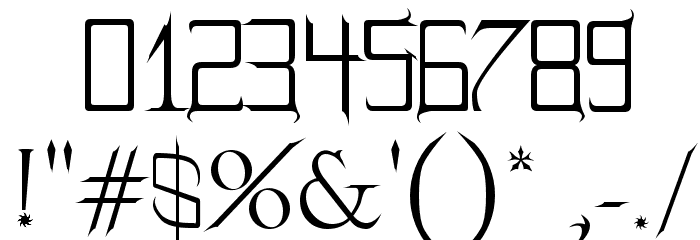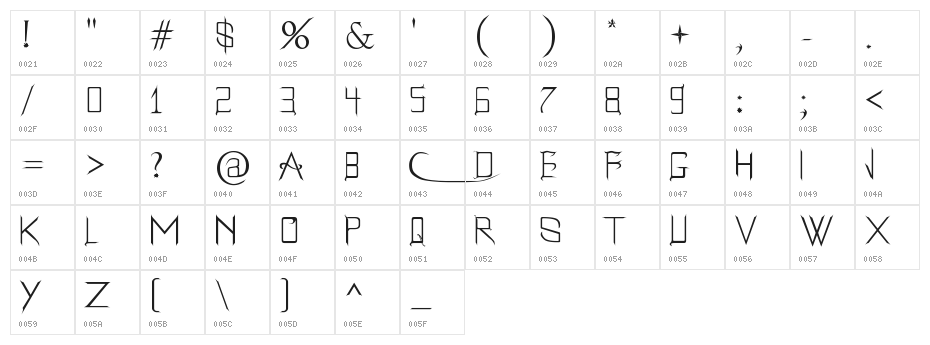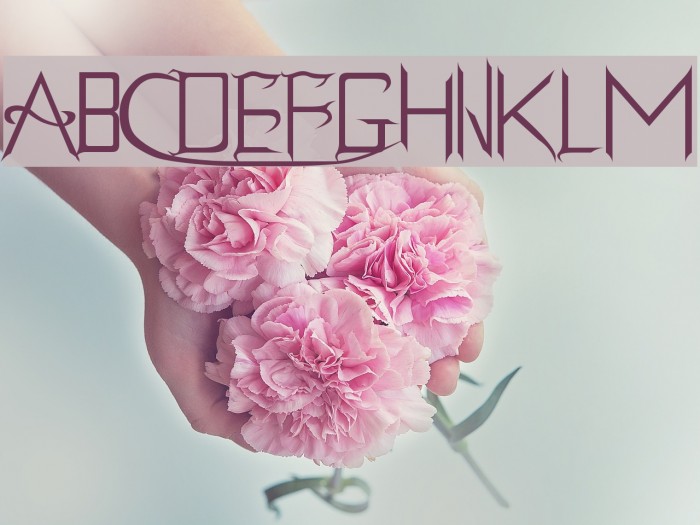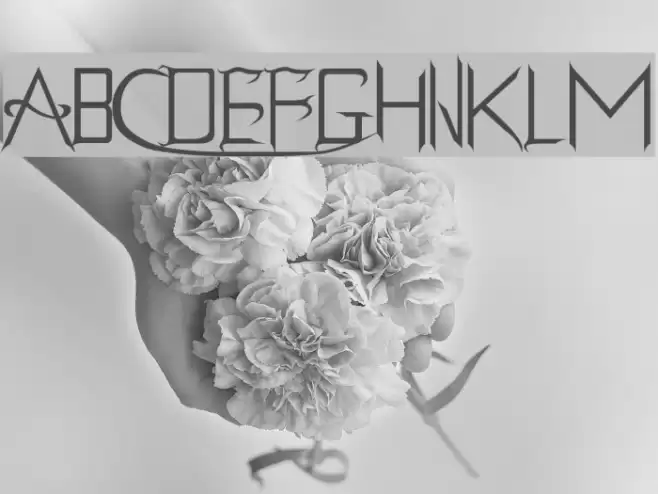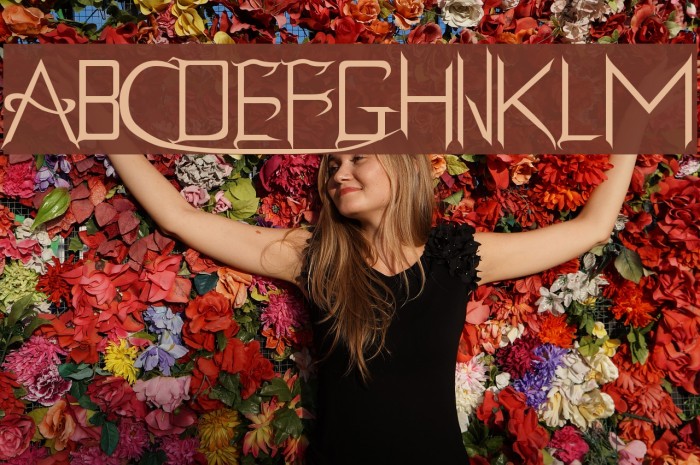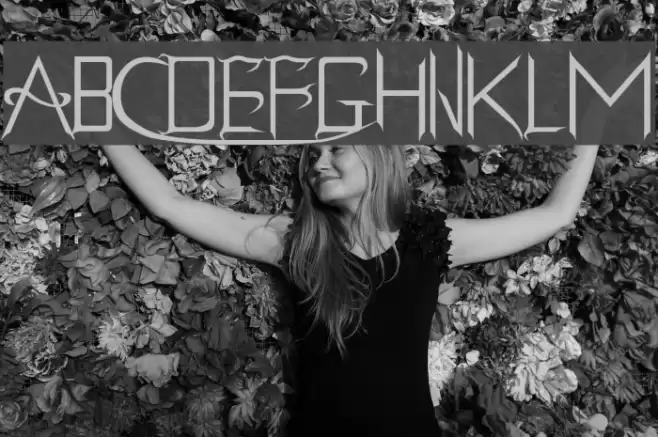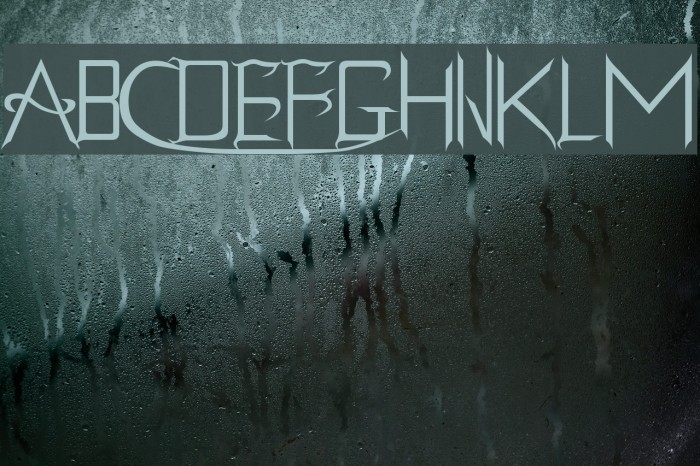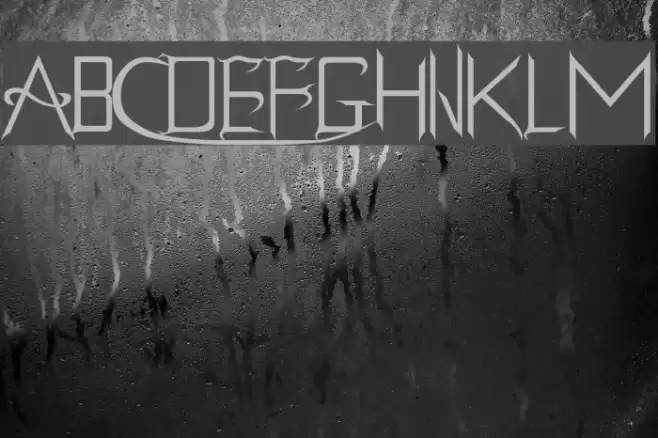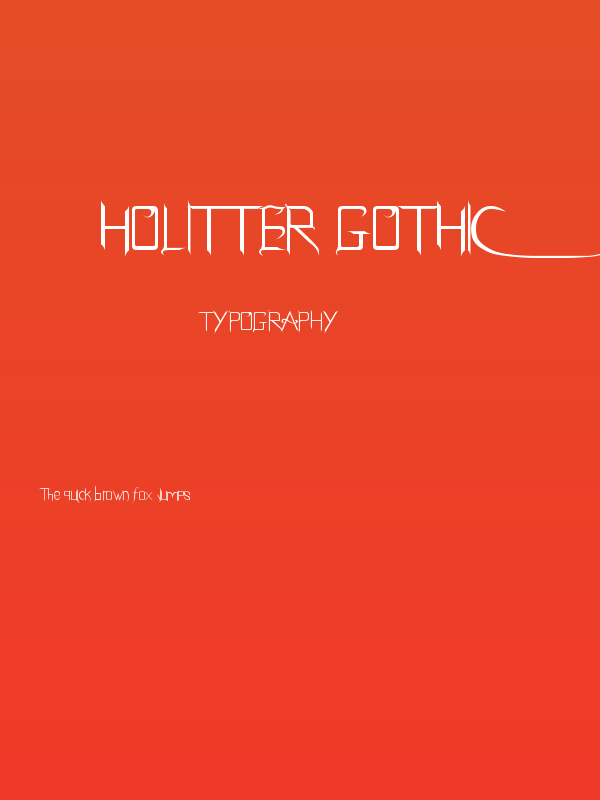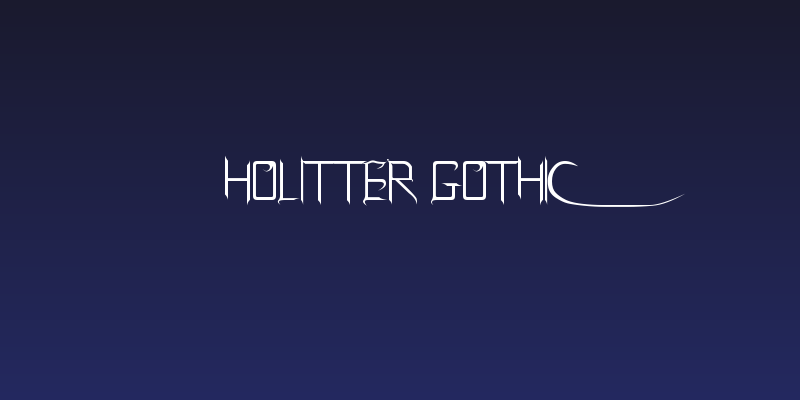
Holitter Gothic Font
Holitter Gothic Description
This font features a unique and edgy design, characterized by sharp, angular lines and a gothic-inspired aesthetic. The uppercase letters are bold and striking, with elongated verticals and pointed serifs that give a sense of drama and intensity. The lowercase letters maintain a similar style, with a slightly more fluid and less rigid structure, adding a touch of elegance to the overall appearance. The numerals are consistent with the font's sharp angles, providing a cohesive look across all characters. Special characters are designed with the same attention to detail, ensuring they blend seamlessly with the rest of the font. This font's distinct style makes it ideal for projects that require a bold and unconventional look.
| Overall Style | Gothic, Edgy, Dramatic |
| Proposed Projects | Ideal for album covers, posters, branding for edgy or alternative brands, and any design that requires a bold, dramatic typeface. |